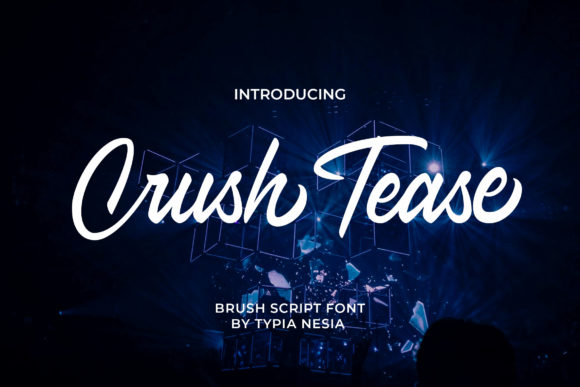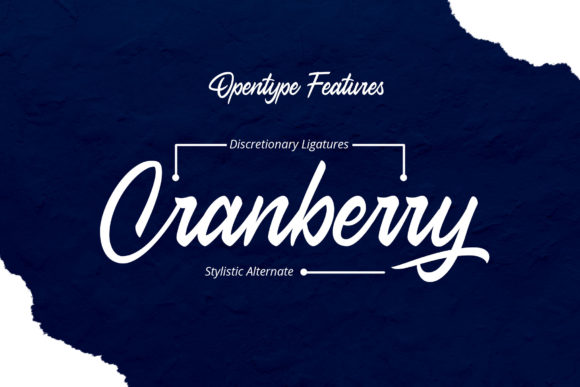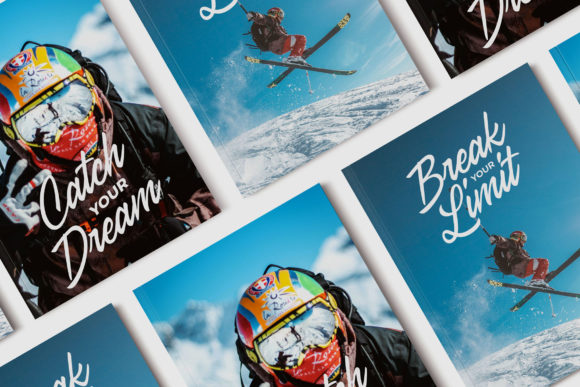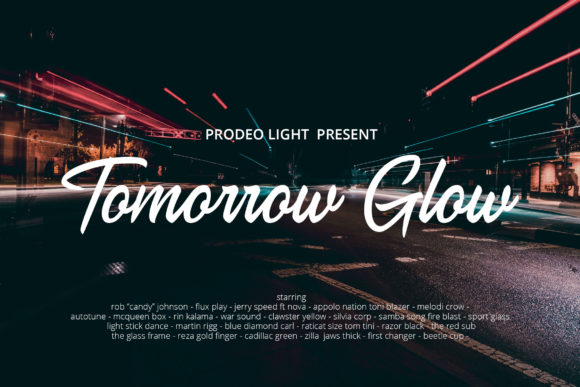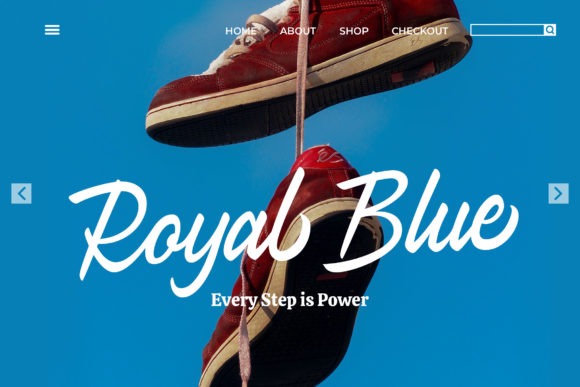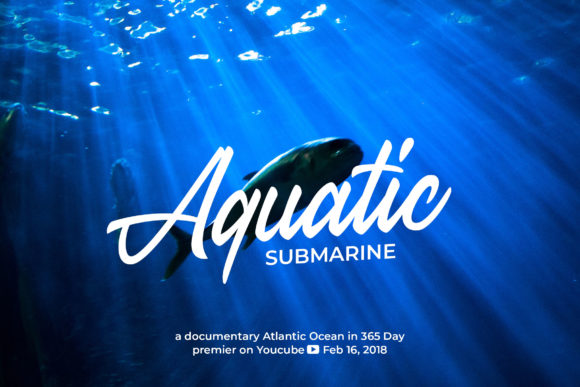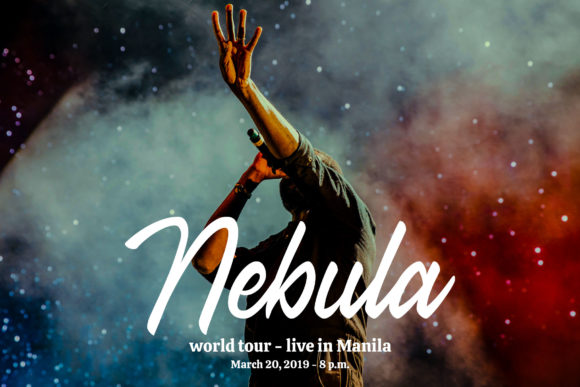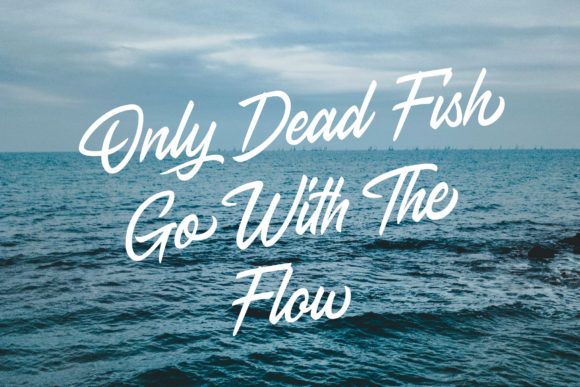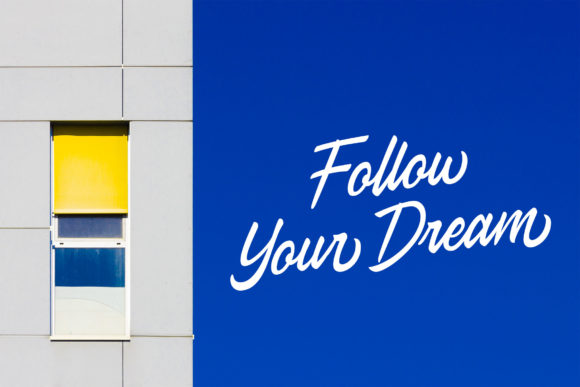
Crush Tease Font
About Crush Tease Font
Crush Tease is a delicate, elegant and flowing handwritten font. It has beautiful and well balanced characters and as a result, it matches a wide pool of designs. Add it to your most creative ideas and notice how it makes them come alive!